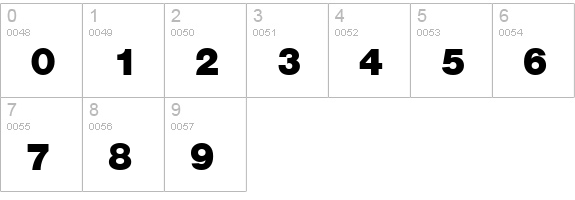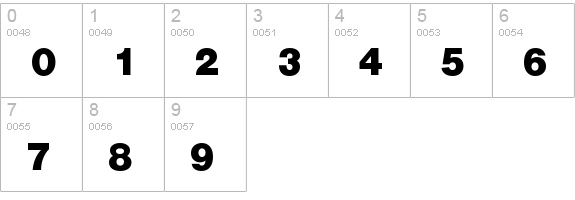
NimbusSanTBla is a modern and elegant font that exudes sophistication and style. With its clean lines and versatile design, this typeface is perfect for a wide range of projects, from branding to editorial design. The NimbusSanTBla font features a unique blend of classic and contemporary elements, making it a timeless choice for any design application. What sets NimbusSanTBla apart is not only its aesthetic appeal but also its accessibility. This font is available for free download on FontsMarket.com, allowing designers and creatives to easily incorporate it into their work without any restrictions. Whether you're working on a professional project or a personal endeavor, NimbusSanTBla is the perfect choice to elevate your design and make a lasting impression.